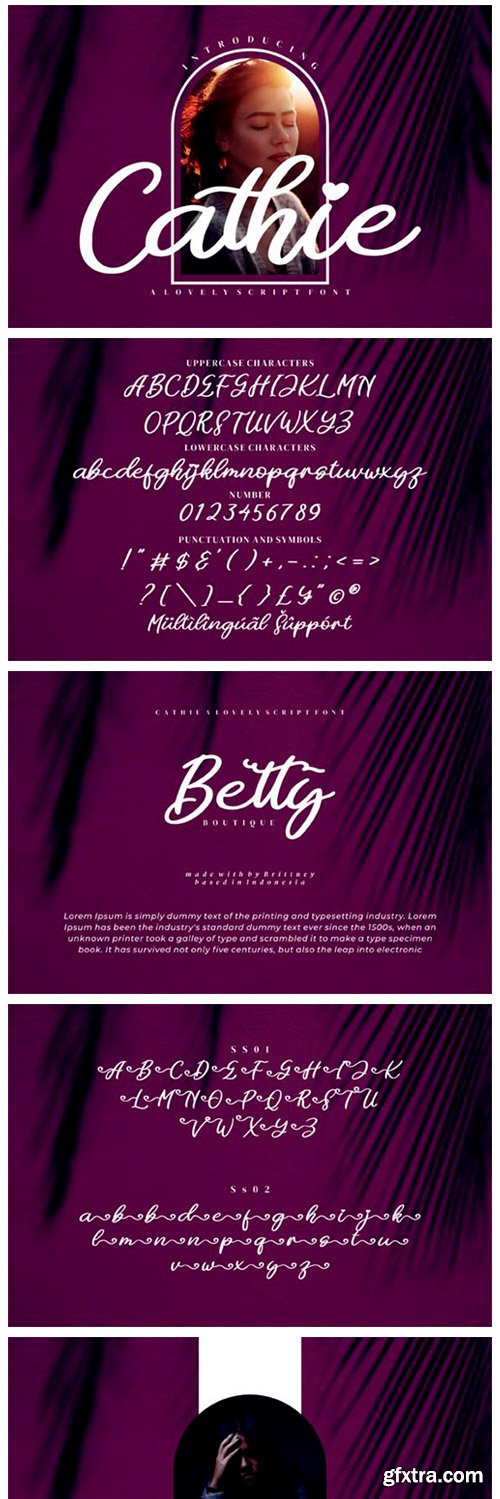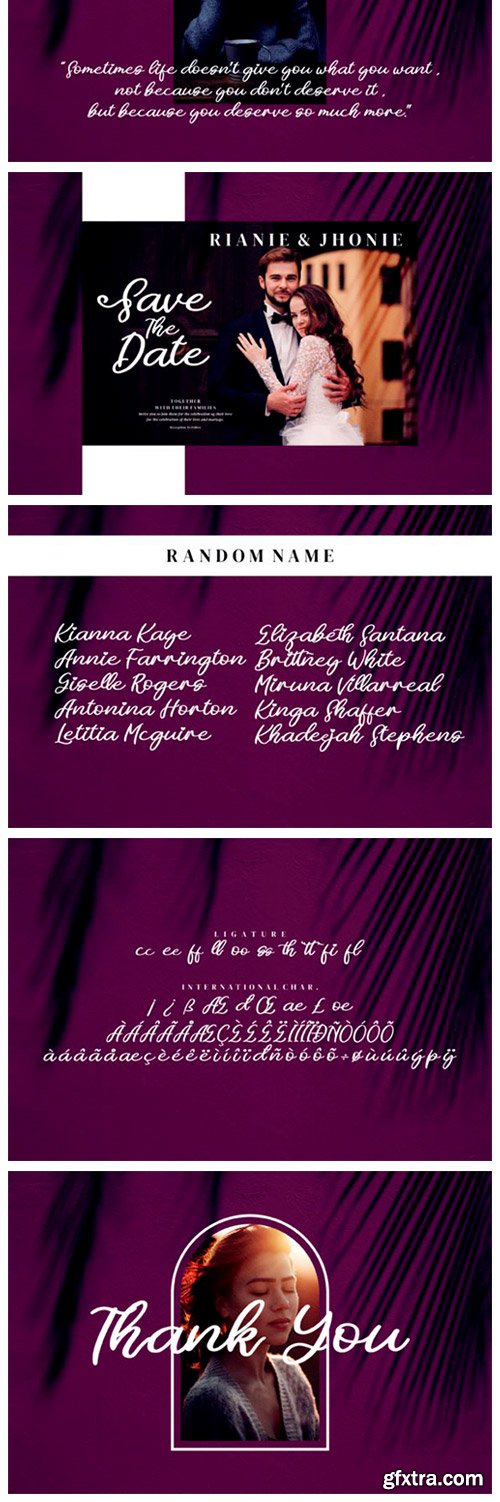
Cathie Font
Cathie is a ravishing handwritten font. This versatile script font has a wide spectrum of applications ranging from greeting cards to headlines and is guaranteed to add a romantic feel to your next project. This font is PUA encoded which means you can access all of the beautiful glyphs and swashes with ease!